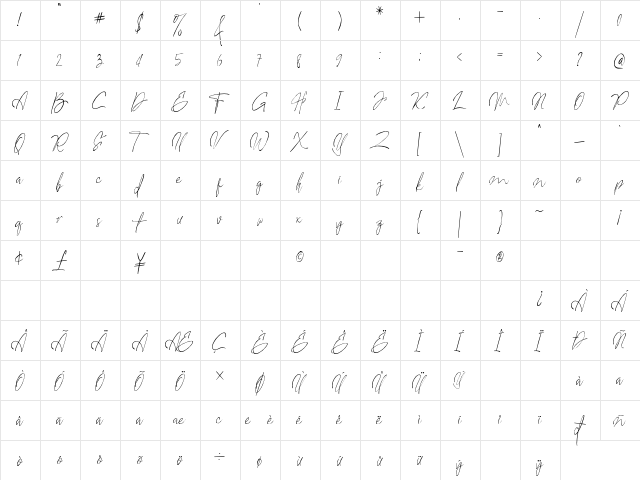
Soul Habit Regular
| Designer | zamjump |
Design Context for Soul Habit Typeface
Soul Habit is a composed and adaptable typeface that performs quietly and consistently across a wide range of design contexts.